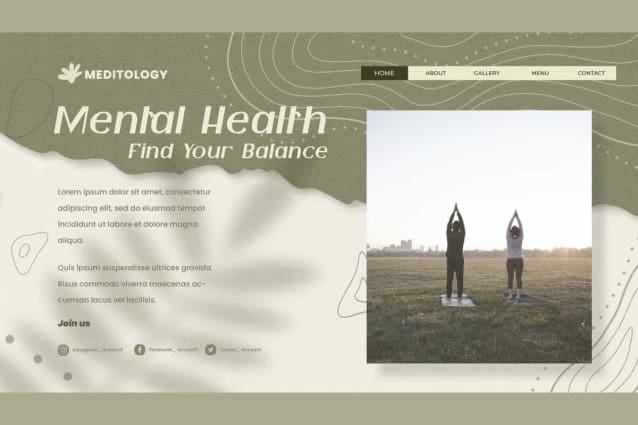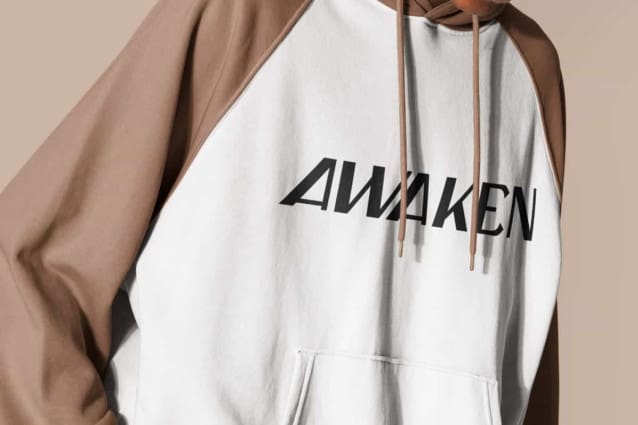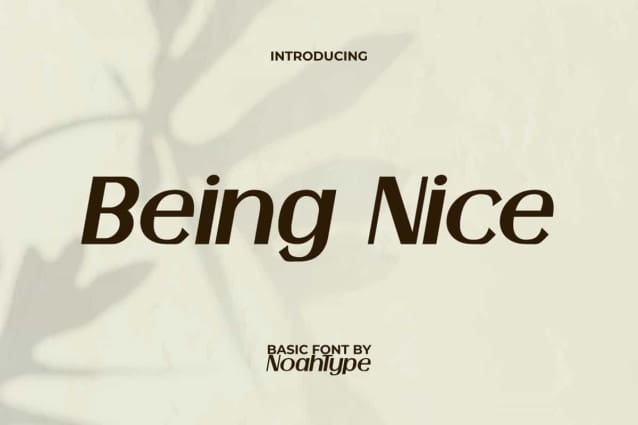
Being Nice Font
Being Nice Font is an italic basic yet classy stylish display font by NoahType. This font has a unique impression and will remain timeless with its charm. It will be perfect for any designs, such as brand image, cover, custom design, invitation, label, marketing material, menu, poster, product packaging, quote, signage, stationery, and web, many more!
Being Nice Font includes full set of Uppercase and Lowercase Basic Characters, Numerals, Punctuation, and Symbol. The characters of this font will give amazing touch and also a perfect choice for many industries, such as accessories, advertising, cafe, event or festival, fashion, movie, photography, printing, publishing, sport, etc.